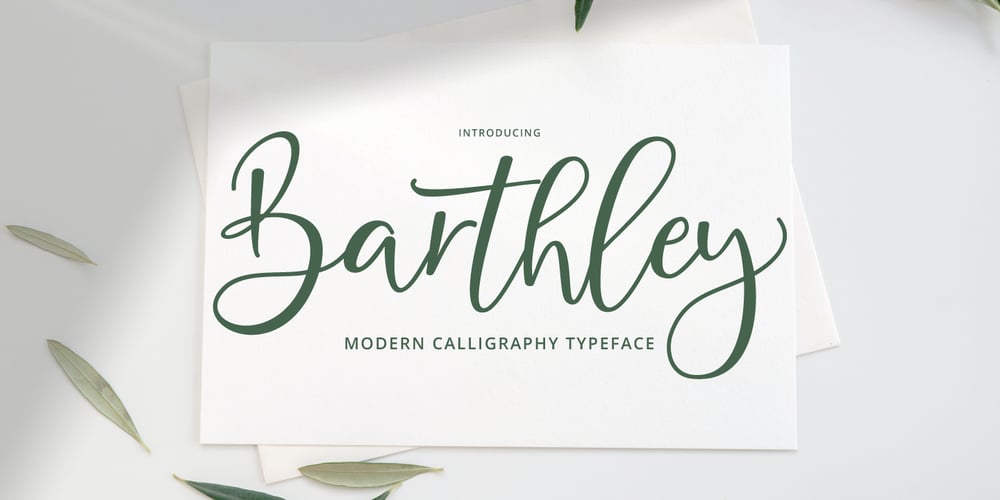
Barthley Script Font Family was designed by Ferdiansyah and published by ijemrockart. Barthley Script contains 1 styles and family package options. Barthley Script with a handmade calligraphy style, decorative characters and a dancing baseline! So beautiful on invitation like greeting cards, branding materials, business cards, quotes, posters, and more!!Barthley Script come with 300+ glyphs. The alternative characters were divided into several Open Type features such as Swash, Stylistic Sets, Stylistic Alternates, and Ligature. The Open Type features can be accessed by using Open Type savvy programs such as Adobe Illustrator, Adobe InDesign, Adobe Photoshop Corel Draw X version, And Microsoft Word. And this Font has given PUA unicode (specially coded fonts). so that all the alternate characters can easily be accessed in full by a craftsman or designer.Barthley Script Features :Uppercase & Lowercase International Languange & Symbols Support Punctuation & Number PUA Unicode Range Standard Ligatures Discretionary Ligatures Stylistic Alternates Stylistic Set.